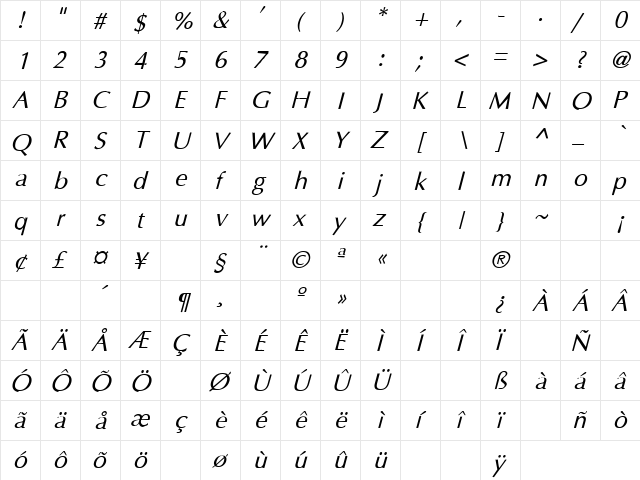
Friends 30 Italic
Design Context for Friends 30 Typeface
Friends 30 offers clean, dependable letterforms without strong stylistic allegiance, making it a practical choice for designers who need flexibility. Its italic angle brings a sense of urgency and motion to the letterforms.
Pro Tip: Use Friends 30 for emphasis, pull quotes, and subheadings where its slanted energy can add rhythm to the layout.